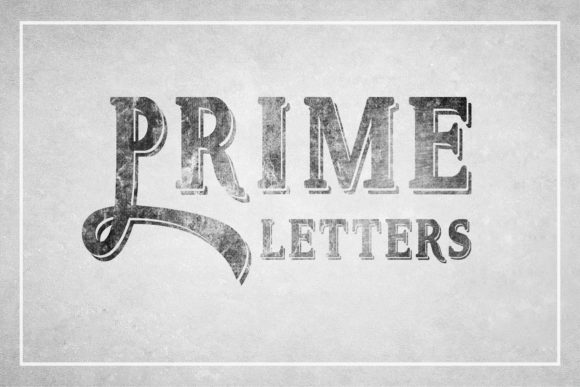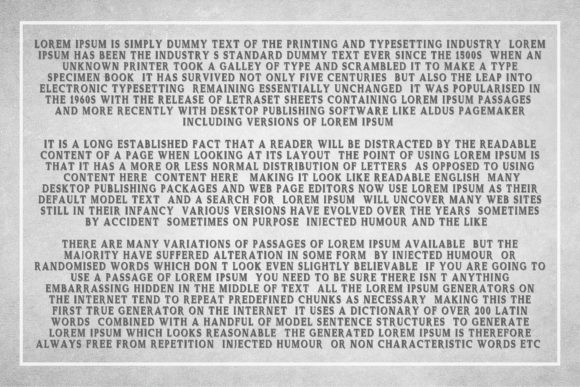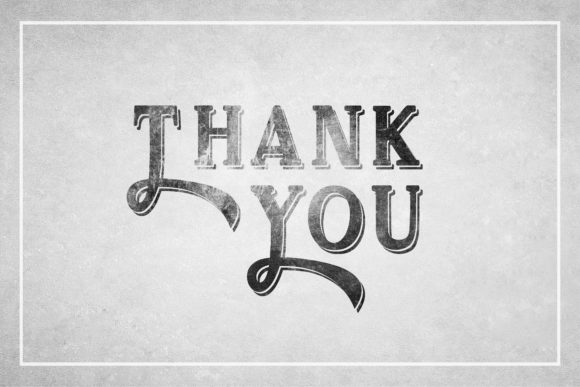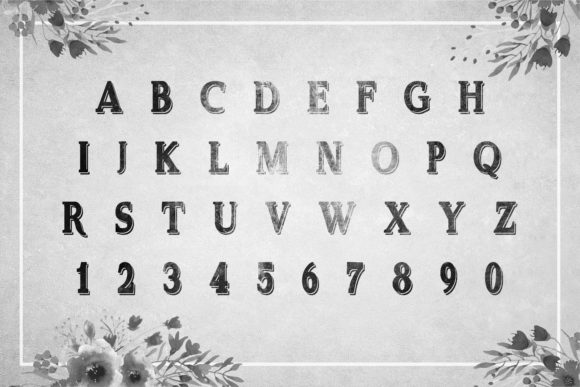
About Delayne Font
Introducing “The Delayne,” an interesting script font designed to give your projects an attractive appeal. This font is not just a typeface; it’s a design asset crafted with bold letters and shadows, adding a distinctive and eye-catching quality to your creative endeavors.
“The Delayne” stands out with its bold letters and shadows, creating a dynamic and visually appealing style. Whether you’re working on posters, branding materials, headlines, or any design that requires an attractive and bold look, this font delivers with its unique script design.
The combination of bold letters and shadows in “The Delayne” adds depth and dimension to your text, making it stand out and grab attention. It’s a versatile choice for various design contexts where you want to make a bold and memorable impression.
Its bold and attractive appeal makes “The Delayne” suitable for a range of applications. Whether you’re designing promotional materials, signage, or any project that needs a touch of bold elegance, this font is a design companion that adds a distinctive visual appeal.
In summary, “The Delayne” is more than just a font; it’s a design asset that brings an interesting script style with bold letters and shadows to your projects. Embrace its attractive appeal for posters, branding, headlines, and more, and let “The Delayne” make your designs stand out with bold and eye-catching allure.